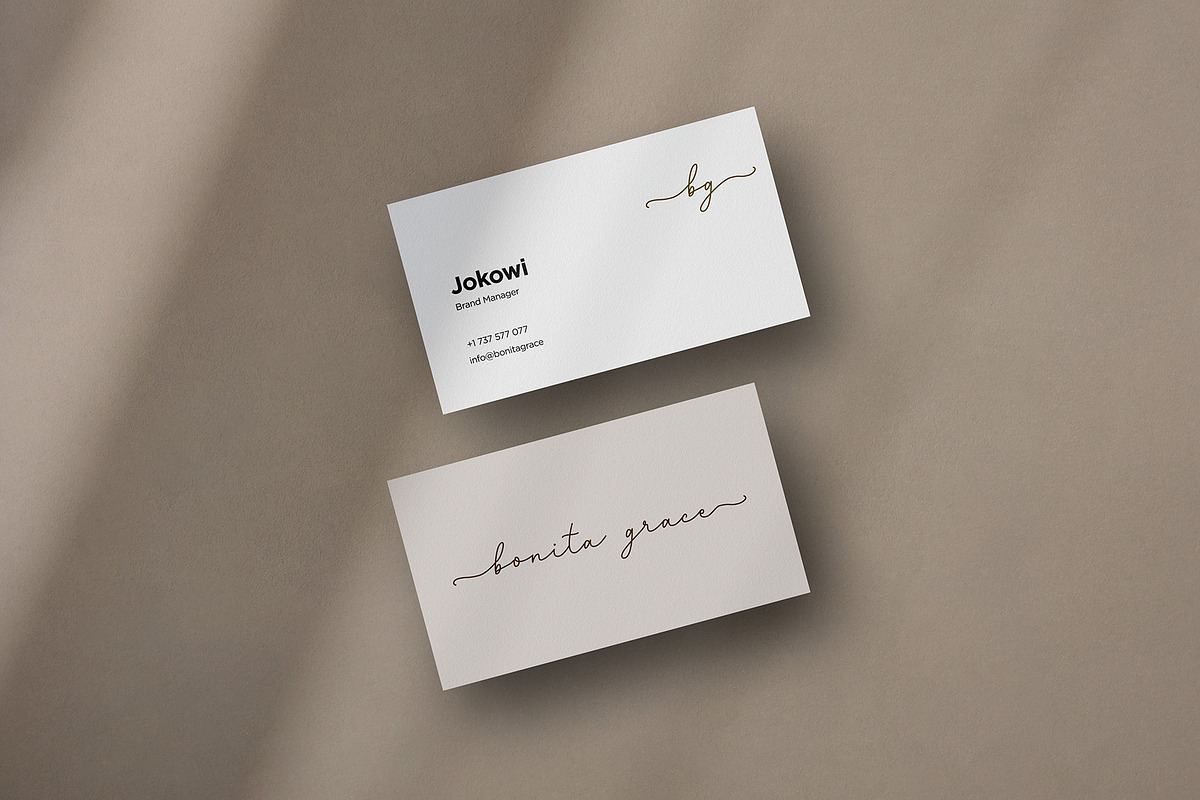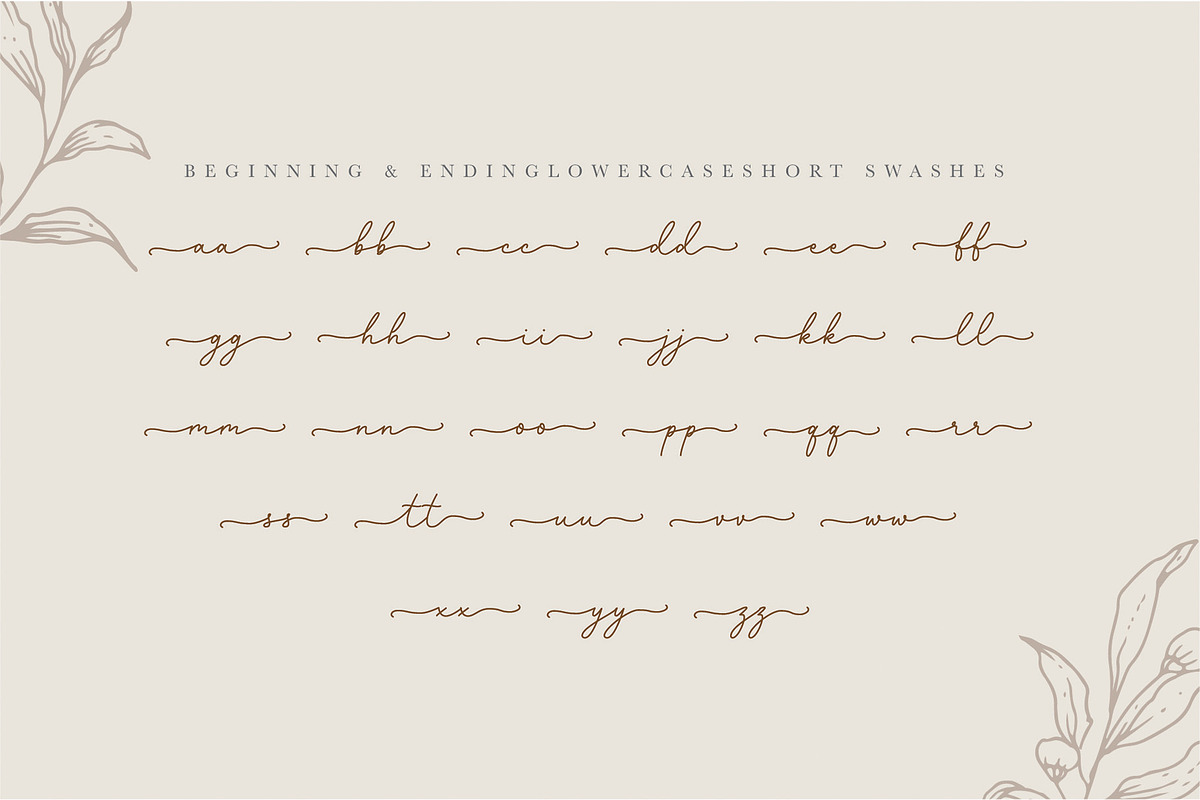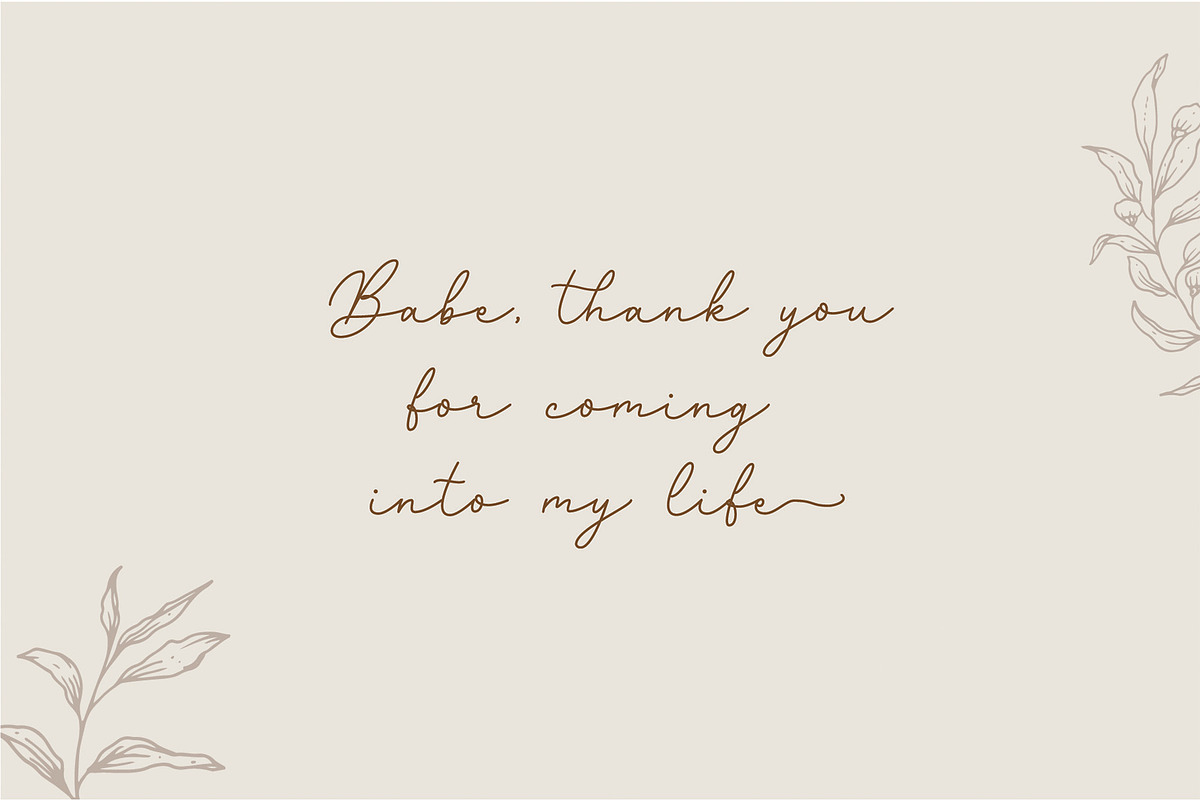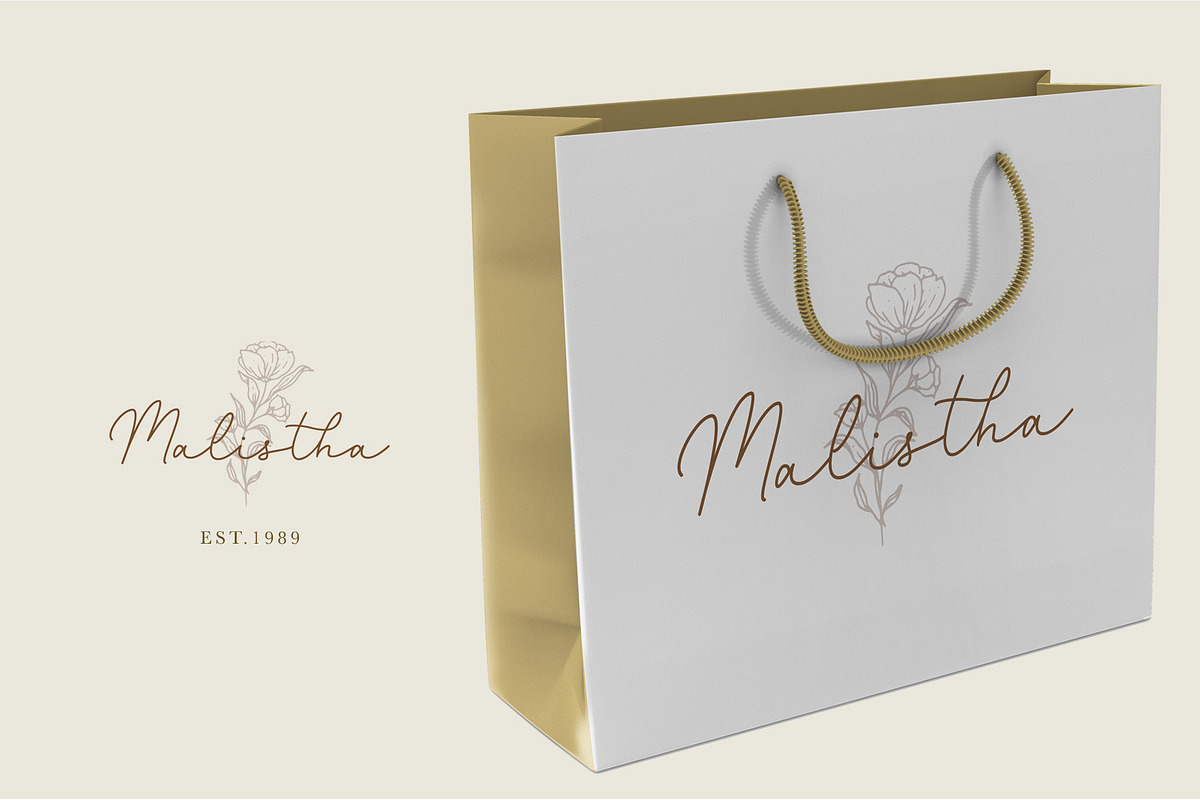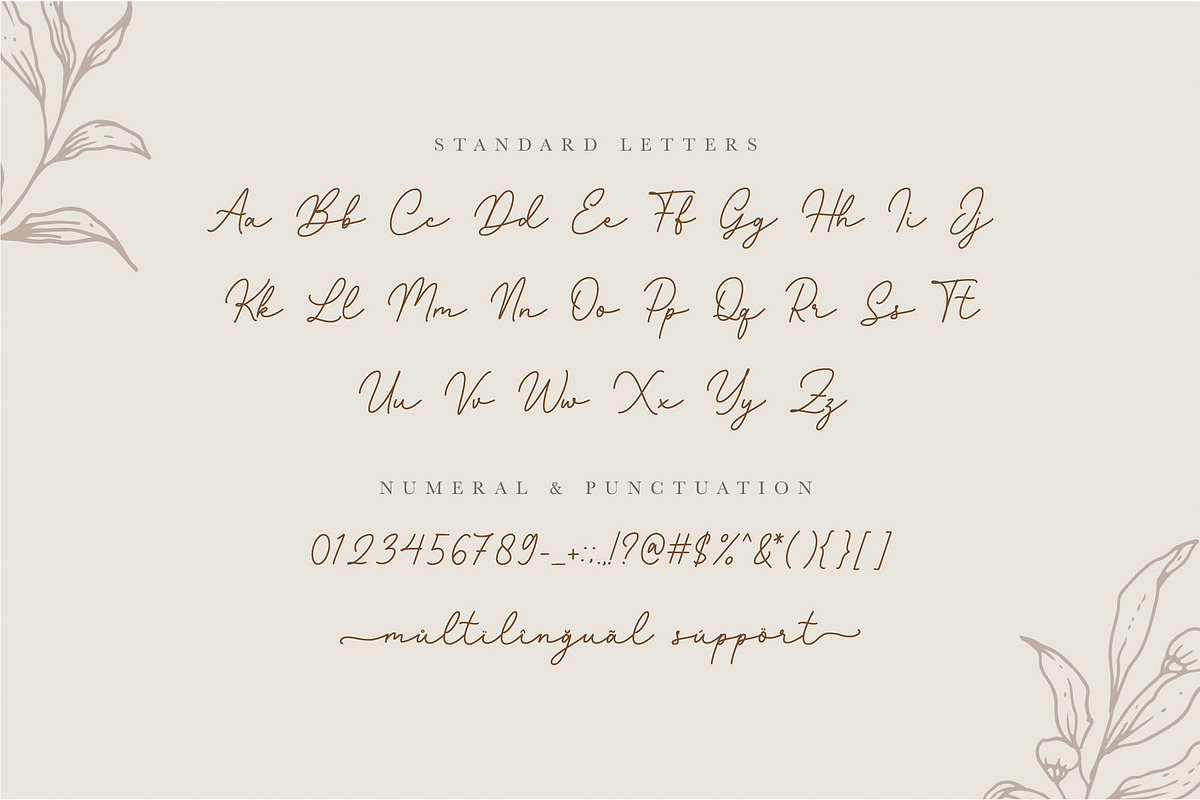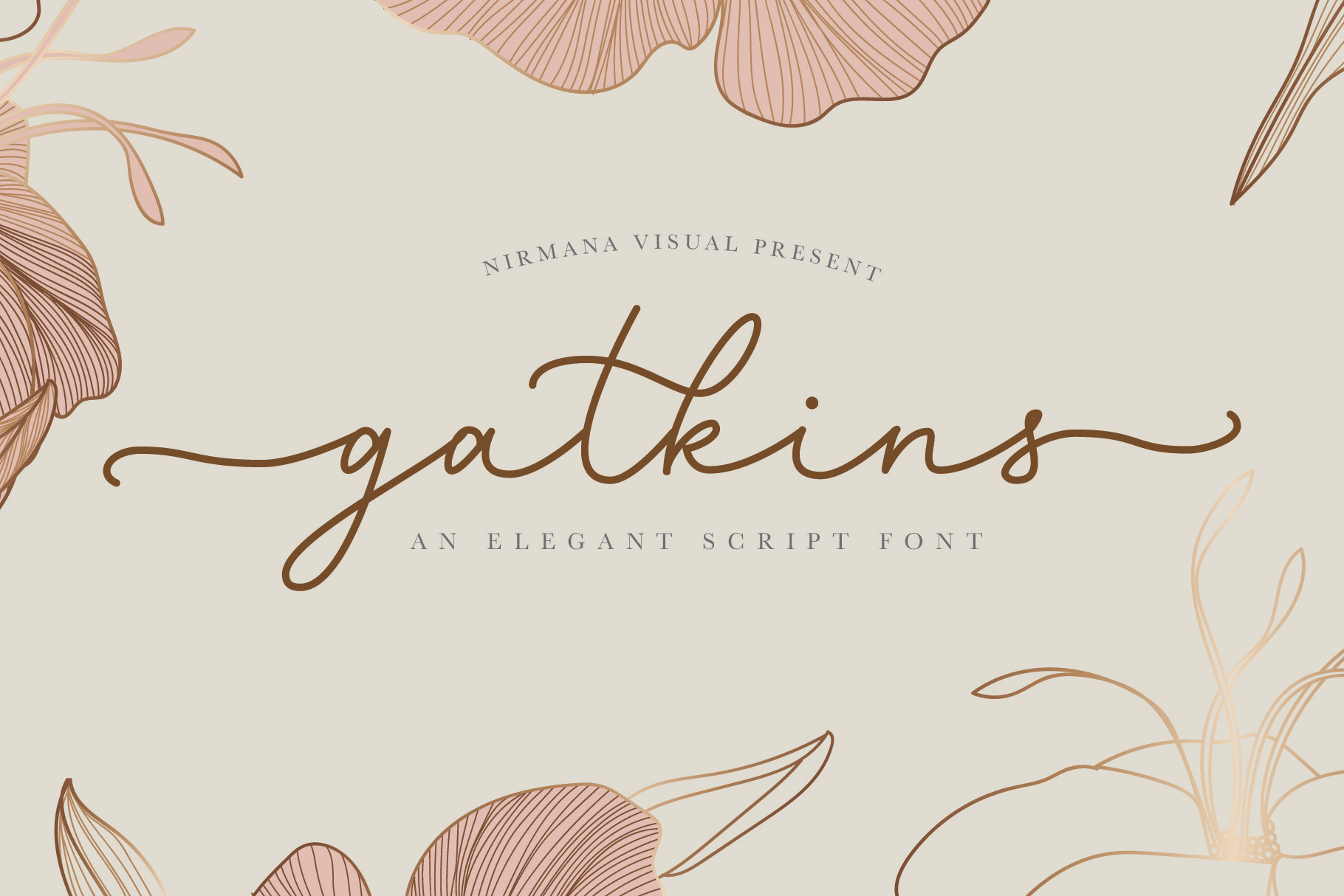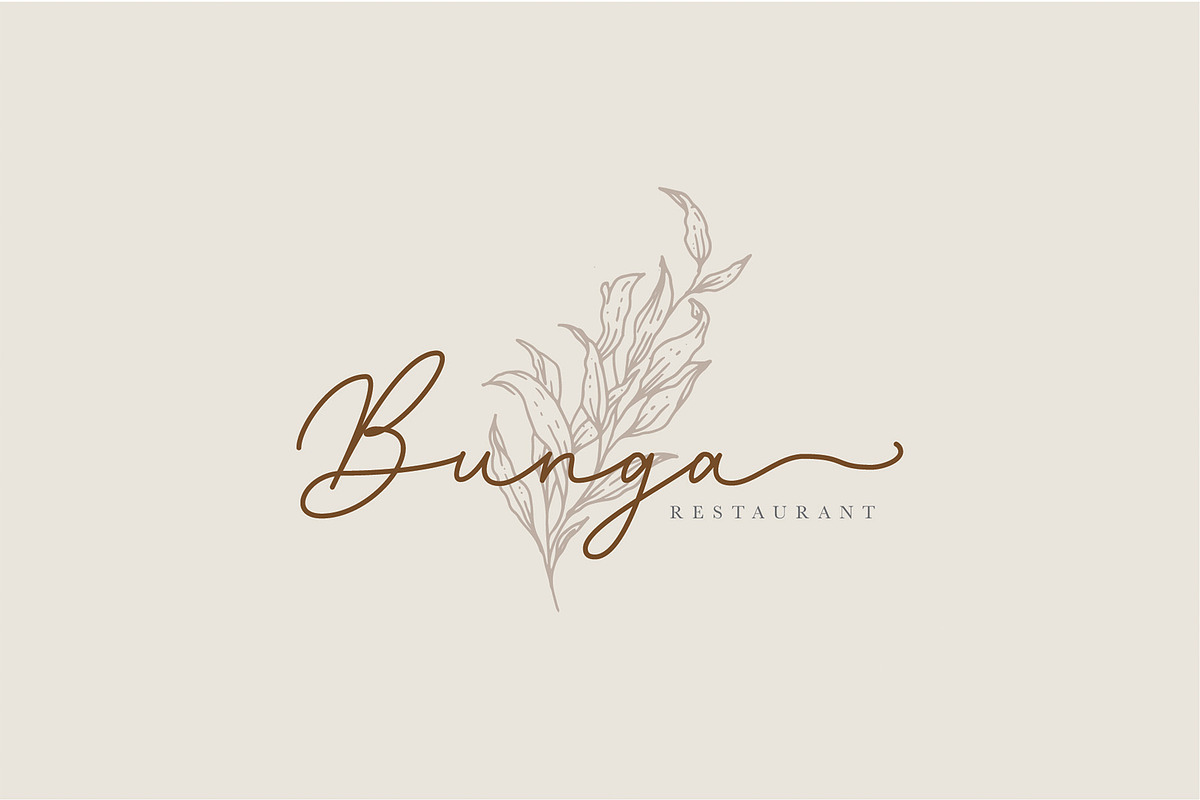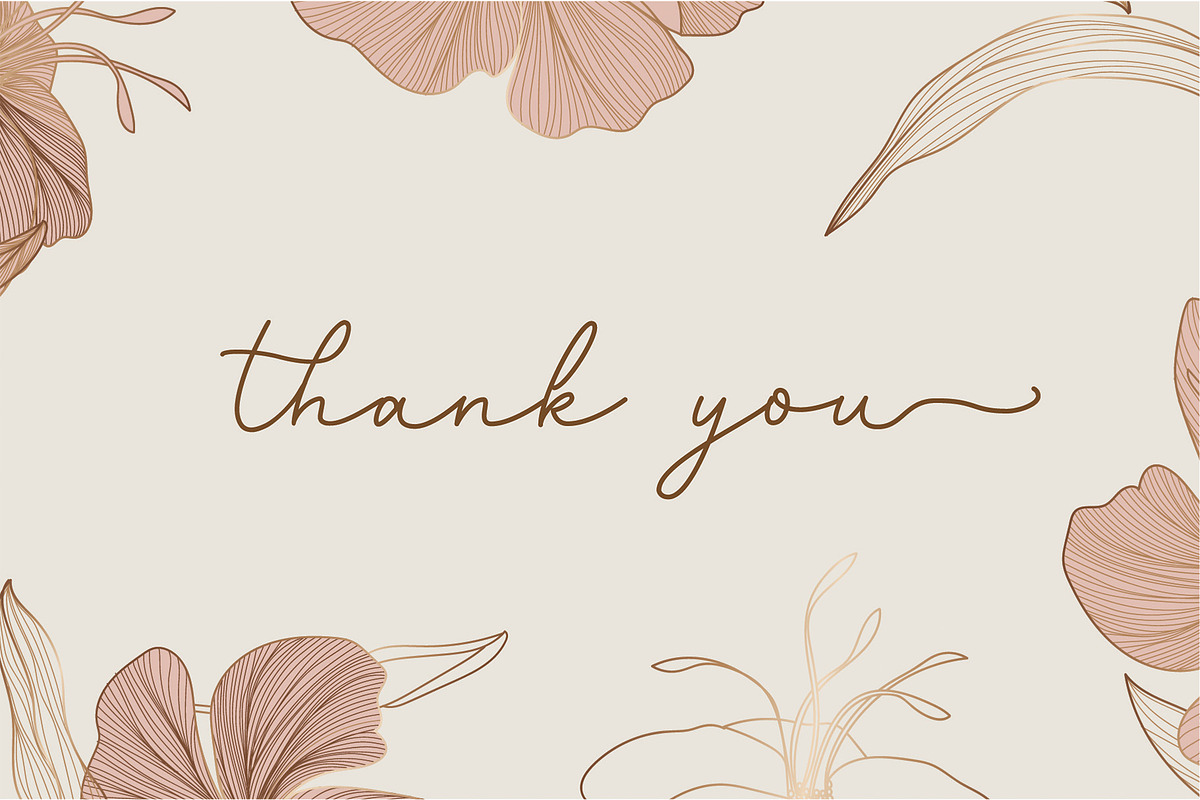
Gatkins - Luxury Script Font
Gatkins is a Beautiful script font carefully created with a touch of romantic. This is a beautiful combination of timeless elegance and authentic calligraphy, It has lowercase beginning and ending swashes.
features : -lowercase beginning and ending swashes. -multilanguange support